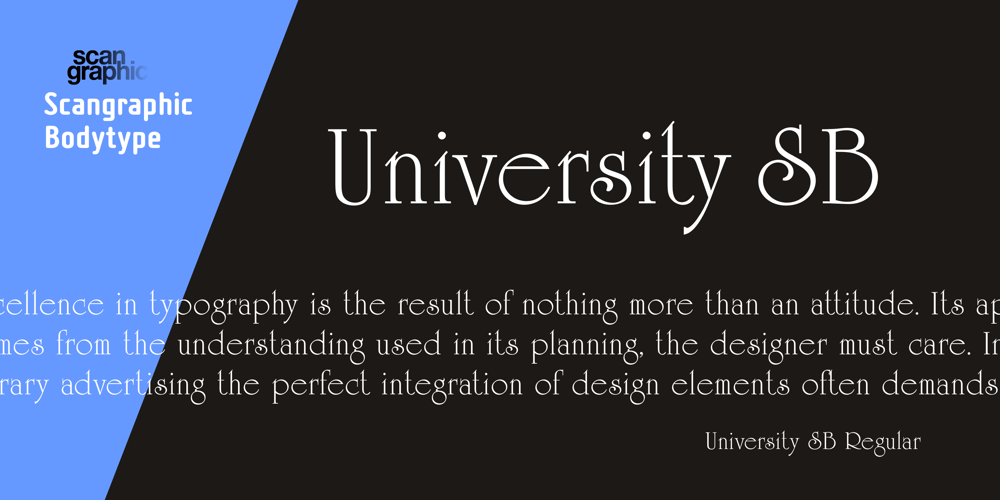
University SB
University SB font
University SB Font Family was designed by Mike Daines, Philip Kelly and published by Scangraphic Digital Type Collection. University SB contains 3 styles and family package options. Since the release of these fonts most typefaces in the Scangraphic Type Collection appear in two versions. One is designed specifically for headline typesetting (SH: Scangraphic Headline Types) and one specifically for text typesetting (SB Scangraphic Bodytypes). The most obvious differentiation can be found in the spacing. That of the Bodytypes is adjusted for readability. That of the Headline Types is decidedly more narrow in order to do justice to the requirements of headline typesetting. The kerning tables, as well, have been individualized for each of these type varieties. In addition to the adjustment of spacing, there are also adjustments in the design. For the Bodytypes, fine spaces were created which prevented the smear effect on acute angles in small typesizes. For a number of Bodytypes, hairlines and serifs were thickened or the whole typeface was adjusted to meet the optical requirements for setting type in small sizes. For the German lower-case diacritical marks, all Headline Types complements contain alternative integrated accents which allow the compact setting of lower-case headlines.